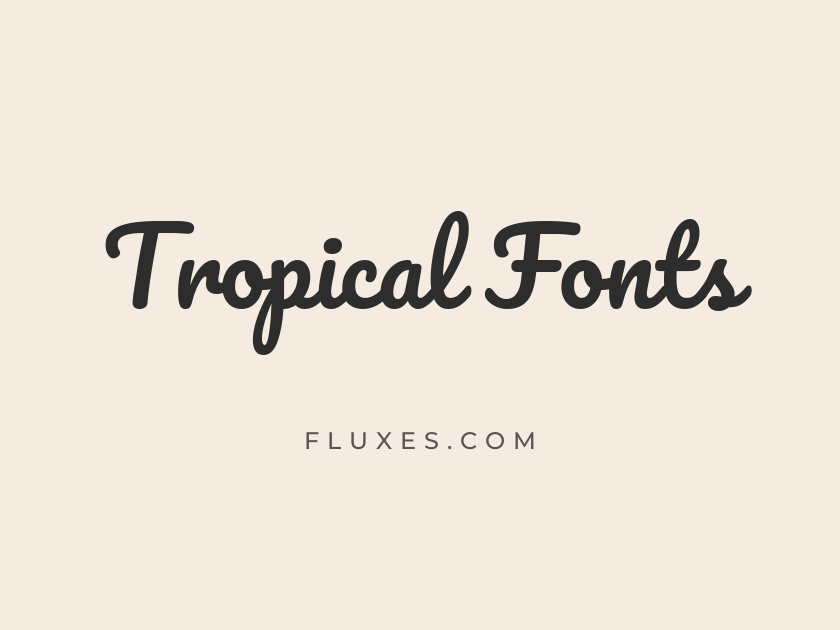
66 Best Tropical Fonts
Pacifico is practically the default typeface of tropical branding, and for good reason. Its rounded, surf-shop lettering was originally drawn for a 1950s American cursive sign style, and that laid-back, hand-painted energy translates instantly into beach logos, smoothie labels, and vacation rental sites.
It is legible enough for headlines but starts to blur at very small sizes, so save it for titles and short taglines rather than paragraphs of copy.
Lobster brings a fatter, glossier brush feel than Pacifico, with swashes that suit cocktail menus and beach cafe signage especially well. It has become so widely used in food and drink branding that pairing it with a plain sans-serif body font instantly signals “casual, fun, and a little indulgent.”
A delicate, fine-lined script that feels more like a signature than a sign. Sacramento works beautifully on tropical wedding invitations or minimalist resort branding where you want warmth without loudness.
Bold, energetic, and slightly urban, Kaushan Script has enough weight to anchor a hero image on a surf or travel website. It reads as confident rather than delicate, which makes it a good match for adventure-tourism branding.
This is a genuine calligraphic brush script with real ink-flow variation, lending an upscale, resort-spa feel. It pairs nicely with a restrained serif for tropical wedding suites.
Yellowtail has a retro, hand-painted boardwalk-sign quality, all bounce and looping connections. It suits vintage-styled tiki bar menus far better than anything overly polished.
Casual and unfussy, Satisfy reads like something scrawled on a chalkboard outside a beach shack. Its lighter stroke weight keeps it friendly rather than showy, which makes it useful where Pacifico or Lobster feel too heavy.
An elegant, elongated calligraphy script with long entry and exit strokes, Great Vibes leans more formal than most tropical scripts. It is a favorite for destination wedding invitations set against beach or jungle backdrops.
Dancing Script has become one of the most widely used free scripts online, and its bouncy, joyful rhythm explains why. It is friendlier and rounder than a formal calligraphy script, which suits juice bars, ice cream shops, and casual beach branding just as well as it suits invitations.
Because it comes in a range of weights, it also works surprisingly well for subheadings on a full website rather than just logotypes.
A natural, unforced handwriting style that feels like a note scribbled on a beach towel. Caveat is a smart choice where you want a personal, informal tone rather than a designed “script font” look.
Light and airy, this handwriting font suits casual blog headers, packaging notes, or anywhere you want text to feel like a friendly aside rather than a formal statement.
Thick, felt-tip lettering with an improvised, sign-painted energy. It suits food truck menus, surf shop signage, and anywhere a tropical brand wants to feel scrappy and hand-made rather than polished.
A soft, rounded cursive with gentle contrast, Marck Script feels understated compared to flashier tropical scripts. It works well in body-length quotes on travel and hospitality sites.
Playful and a touch retro, Cookie has a candy-shop sweetness that suits tropical drink menus, dessert branding, and juice bar packaging.
A bold, single-weight script with confident, unbroken strokes, Playball reads almost like a vintage sports pennant. It has a sporty, surf-culture energy that separates it from the more delicate wedding-style scripts on this list.
Handlee
Casual and rounded, Handlee mimics ordinary handwriting rather than calligraphy, making it a good fit for approachable travel blogs or packaging that wants to feel personal.
Clean and highly legible even at small sizes, Patrick Hand is one of the few handwriting-style fonts on this list that works comfortably as body text, not just headlines.
Coming Soon
A relaxed, slightly childlike handwriting font with a cheerful, informal tone, well suited to playful signage and social graphics for beach events.
For weddings and resort branding, keep the elegant scripts like Tangerine, Allura, or Italianno reserved for names and short phrases; their delicate strokes get harder to read in longer lines.
Wrapping up
Tropical design has room for more moods than most categories: sun-faded nostalgia, tiki bar kitsch, upscale resort polish, and jungle adventure all live under the same umbrella. With this much free variety available on Google Fonts, there is rarely a reason to reach for a paid alternative when building a beach, travel, or tropical food brand.